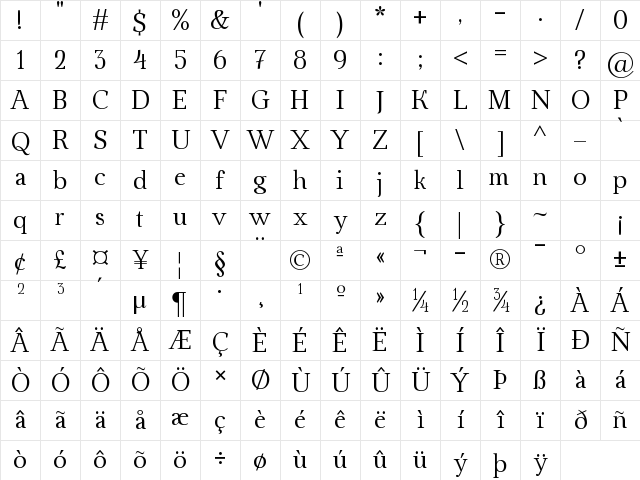
Ahellya Regular
Design Context for Ahellya
Ahellya is a composed and adaptable typeface that performs quietly and consistently across a wide range of design contexts.